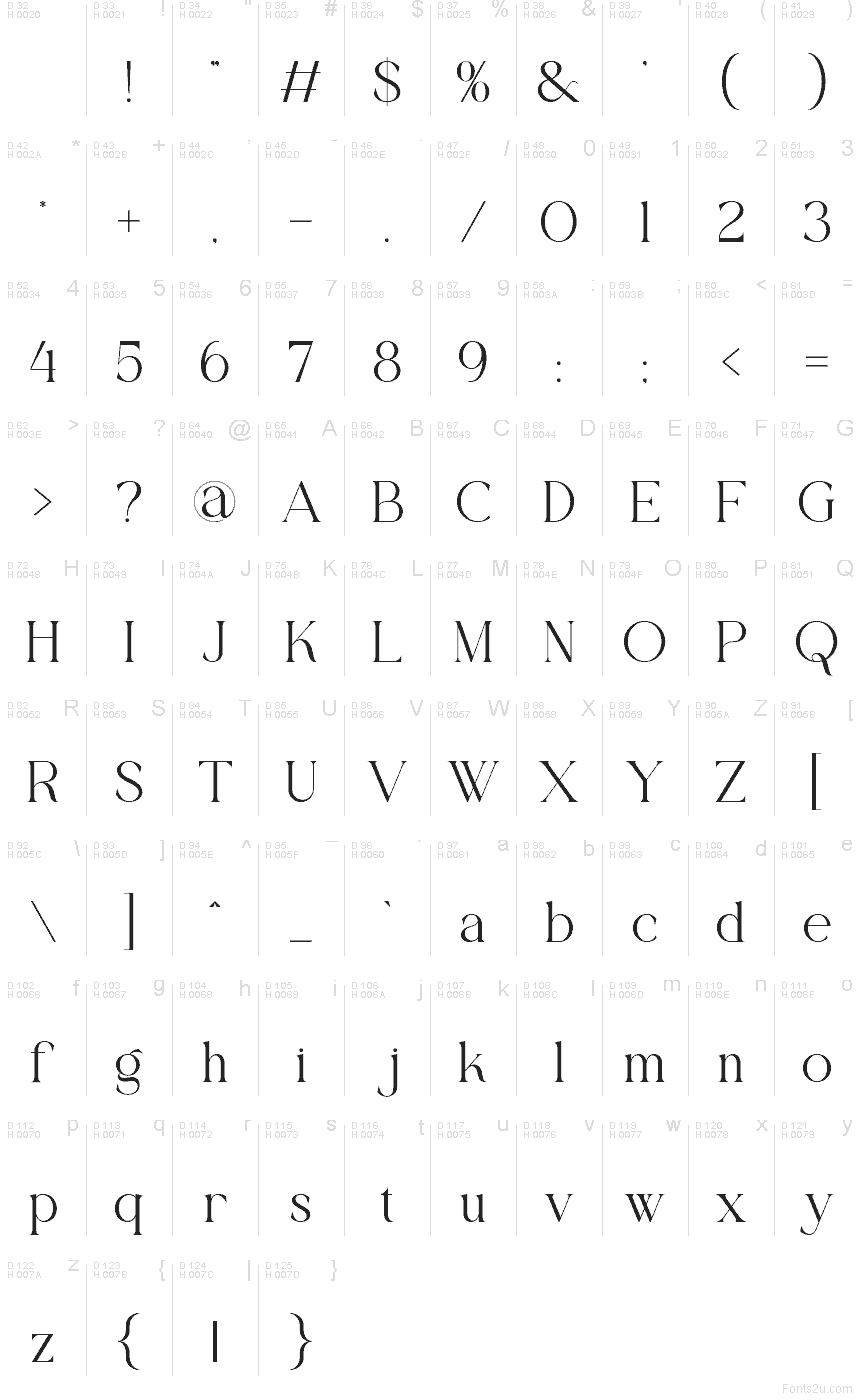
Sagero Regular
Sagero font by ErmediaStudio is a free serif typeface with a poised, sculptural feel. Its letters sweep from razor-sharp entry points into velvety curves, giving words a sense of movement and quiet drama. The generous curves and sleek, tapering strokes feel luxurious without being fussy, making Sagero look as if it’s been carefully carved rather than simply drawn.
This free font shines on fashion branding, beauty packaging, magazine covers, editorial layouts, posters, and elevated social media graphics. Using Sagero at larger sizes lets those inky curves and refined shapes really breathe. For a polished system, pair Sagero headlines with a simple geometric sans serif for body text to keep the focus on its elegant rhythm.